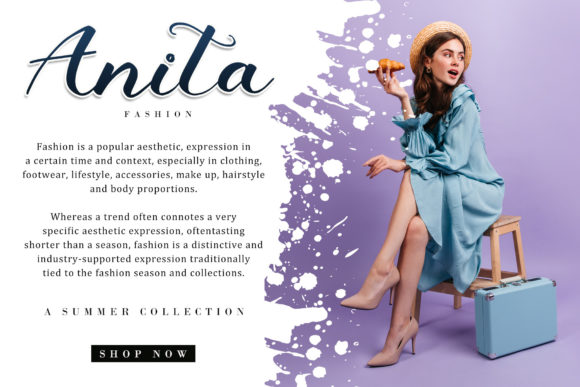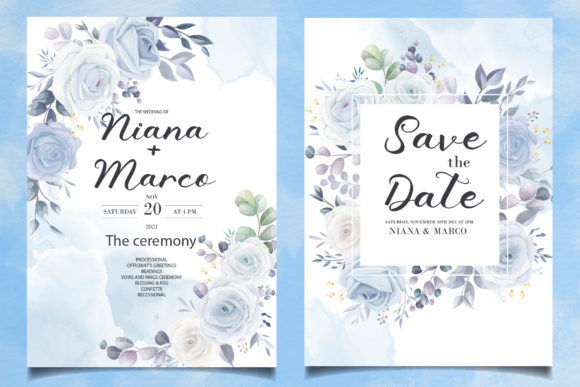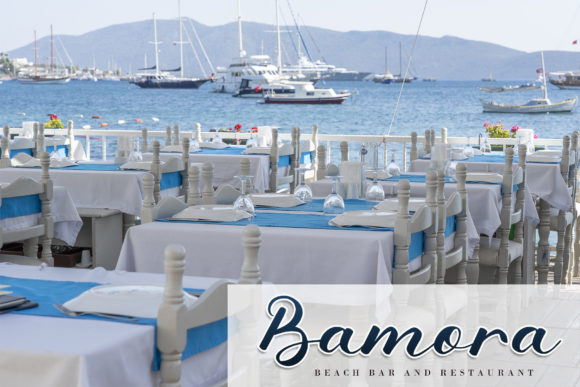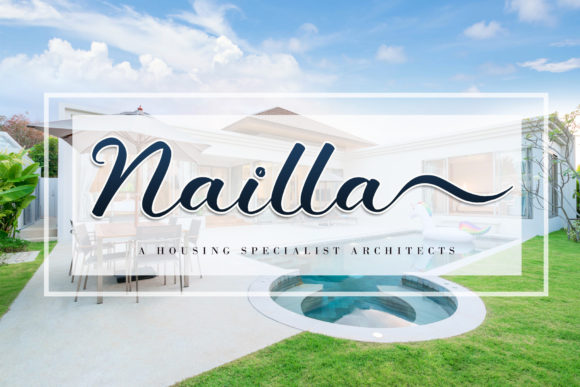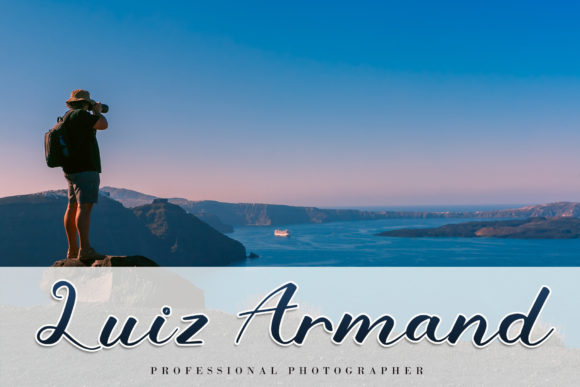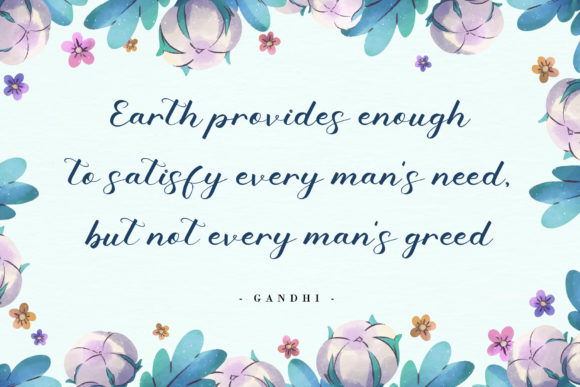
Introduction to Melline Font
Melline is a romantic and sweet calligraphy typeface with characters that dance along the baseline.
Key Features of Melline Font
Why Choose Melline Font?